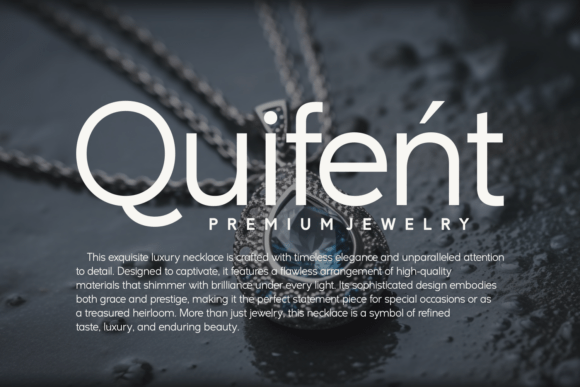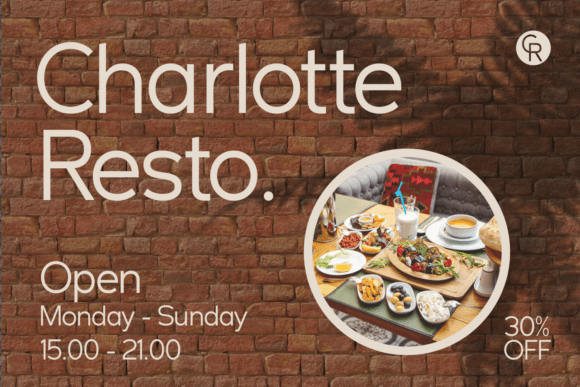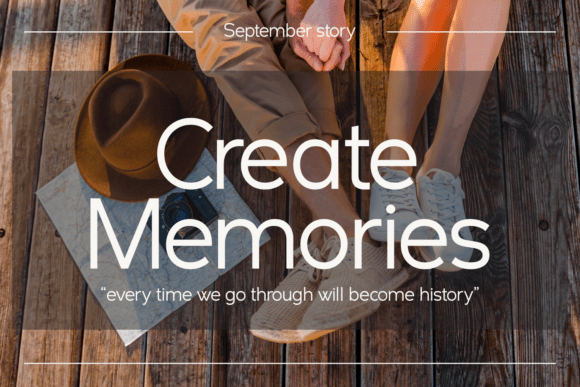
Introduction to Photo Cuppy Font
Have you ever stared at a blank page, searching for the perfect font to elevate your creative project? The moment when everything comes together – the words, the images, the design – is truly magical. It’s a feeling that designers strive to recreate with every new project. And for those who are always on the lookout for the next big thing, we’re excited to introduce you to the Photo Cuppy Font.
This sleek and modern sans serif font is a game-changer for designers, offering a perfect balance of simplicity and style. With its clean lines and geometric shapes, it’s ideal for branding, photography portfolios, social media graphics, websites, and editorial layouts. Whether you’re working on a high-quality design for a corporate client or a free download for a creative friend, the Photo Cuppy Font is a valuable resource that’s sure to deliver.
Key Features of Photo Cuppy Font
- High-quality design suitable for creative projects, with a unique and playful style.
- Perfect for use in digital and print media, including social media graphics, logos, and advertisements.
Honest Review: Photo Cuppy Font
As a designer, I’m always on the lookout for unique and high-quality fonts to enhance my creative projects. I recently came across the Photo Cuppy Font, and I’m excited to share my honest review.
- ✨ The font is incredibly versatile and can be used for a wide range of creative projects, from digital art to graphic design.
- ✨ The transparent background makes it easy to use as a design resource, allowing for seamless integration into any project.
However, there are some limitations:
- ⚠️ The font may require some tweaking to achieve the desired level of transparency, which can be time-consuming.
Overall, I’m impressed with the Photo Cuppy Font. While it may have some limitations, its versatility and high quality make it an excellent addition to any designer’s toolkit. I’d definitely recommend it as a free design resource for creative projects.
Tips for Getting the Most Out of Photo Cuppy Font
For the best results, use Photo Cuppy Font in combination with other high-quality design elements, such as images and graphics. You can also experiment with different font sizes, colors, and styles to create a unique design. This font is available for free download and is a great resource for designers and non-designers alike.
Photo Cuppy Font is perfect for creating designs for social media, presentations, reports, and documents. It’s also great for branding and marketing materials, such as business cards, brochures, and flyers. With its high-quality design and transparent background, this font is a valuable addition to any design project.